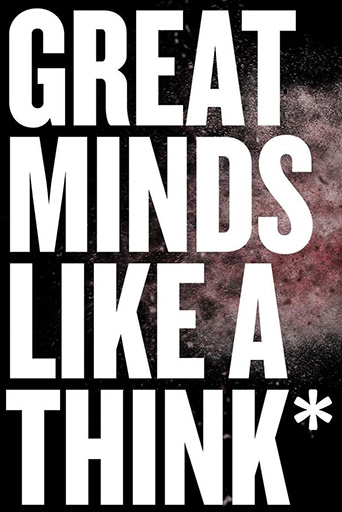
Which font is this? Looks like Helvetica ExtraComp
I’m looking for a font that looks like Helvetica ExtraCompressed.
But with some quirks that I love:
• the middle stroke of the E isn’t as long as the top and bottom one
• the S is more slender and “better” curved, has more space
• the K… bottom right stroke starts growing out of the left top stroke and not from the middle left vertical line
Does anyone know how this font is called?
Looks like Rama Gothic Bold